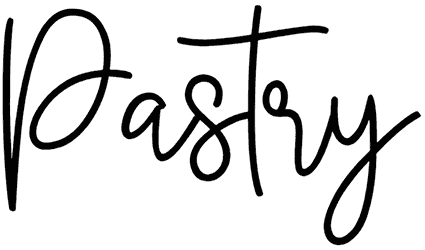
Pastry Font
Pastry is a personal expression that can never be repeated. Each stroke of this script font is imbued with personality and leaves behind a trail of curves that dance across the page.
Using this neon font can bring a sense of warmth to any project and create more effective communication with your audience. Whether you want to add glamor to your wedding invitations or convey a sense of nostalgia in your brand, this script font will be the best choice.